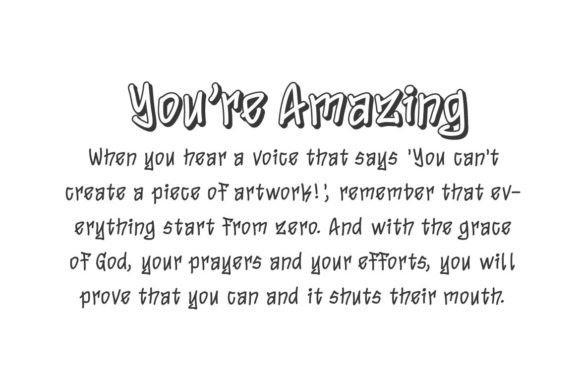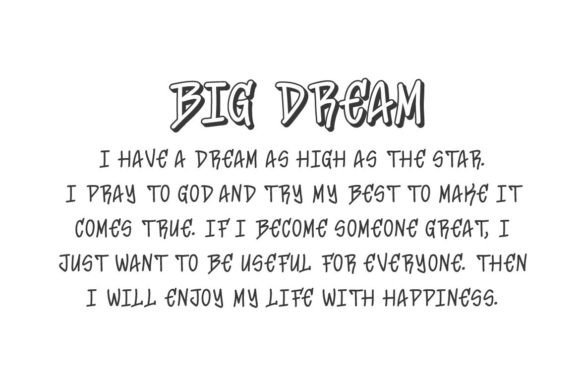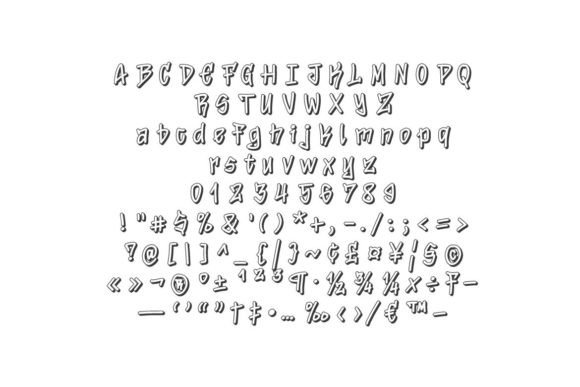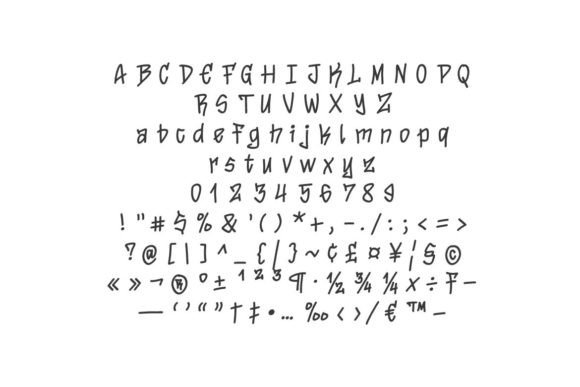
Introduction to Fredyn Font
You know that feeling when you’re working on a creative project and you can’t find the right font to match your vision? The words on the screen just aren’t popping, and you’re left feeling stuck. That’s when I discovered the Fredyn Font – a game-changing design resource that’s taken my projects to the next level.
With its street art style, the Fredyn Font is perfect for adding a touch of edginess to your designs. Whether you’re working on a logo, wall art, or apparel branding, this versatile font is sure to impress. And the best part? It’s available for free download, making it an accessible resource for designers of all levels.
Key Features of Fredyn Font
- High-quality, professional font perfect for creative projects, including graphic design and digital art.
- Comes in a transparent background option, allowing for seamless integration into various design elements.
- Features a high-resolution design, ideal for use in print and digital applications at 300 DPI or higher.
- Unique, modern design aesthetic, making it an excellent choice for designers looking to add a touch of sophistication to their creative project.
Honest Review: Fredyn Font
I recently stumbled upon the Fredyn Font while searching for a free design resource for a creative project. As a designer, I’m always on the lookout for high-quality fonts that can elevate my work. In this review, I’ll share my honest thoughts on this font.
- ✨ The font’s unique design makes it perfect for modern and edgy projects. Its bold and playful style is sure to grab attention.
- ✨ The font’s transparent background makes it easy to use with any background image or color.
- ⚠️ The font is not suitable for projects that require a classic or traditional look. Its modern design might not be the best fit.
- ⚠️ The font’s bold style can be overwhelming if used in large quantities.
Overall, I’m impressed with the Fredyn Font. Its unique design and high quality make it a valuable addition to any designer’s toolkit. While it may not be suitable for every project, it’s definitely worth checking out for creative projects that require a bold and edgy look.
Fredyn Font
Tips for getting the most out of Fredyn Font include experimenting with different font sizes, colors, and styles to create a unique design. You can also use it in combination with other design resources to achieve a cohesive look.
Common use cases for Fredyn Font include creating logos, business cards, and other marketing materials. Its high quality and versatility make it an ideal choice for designers and non-designers alike.